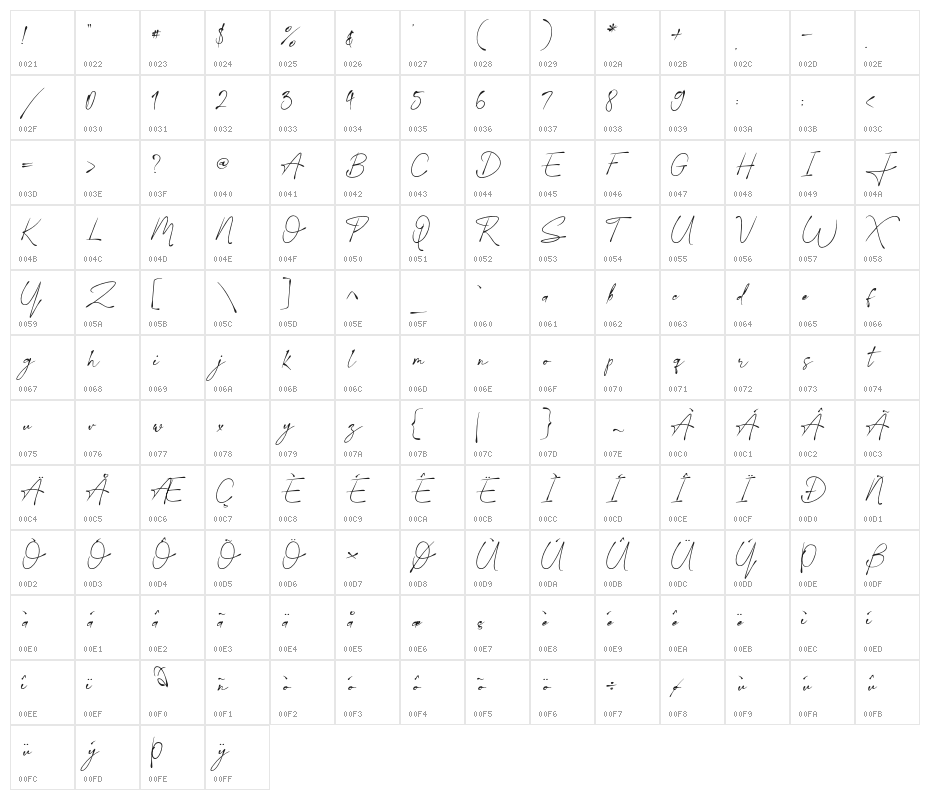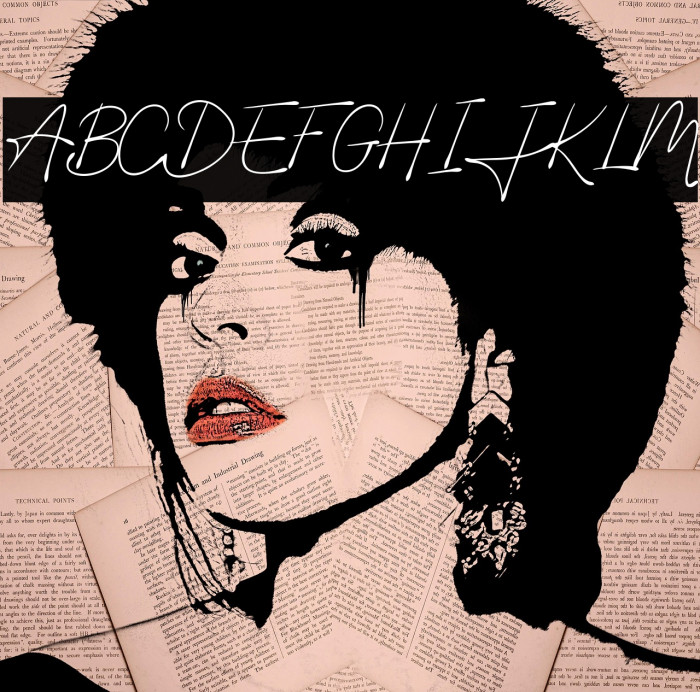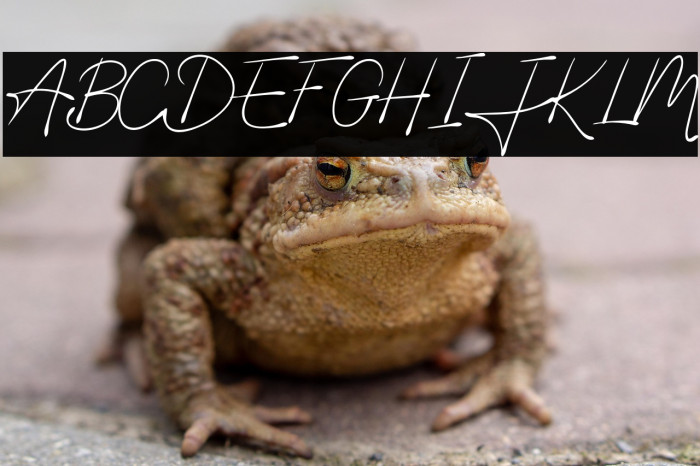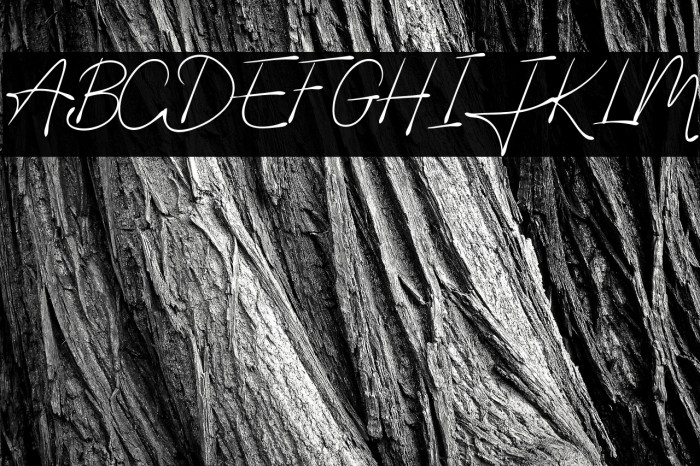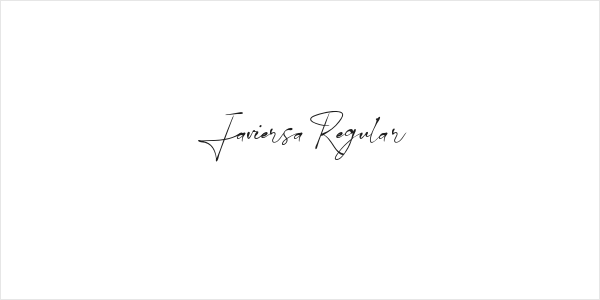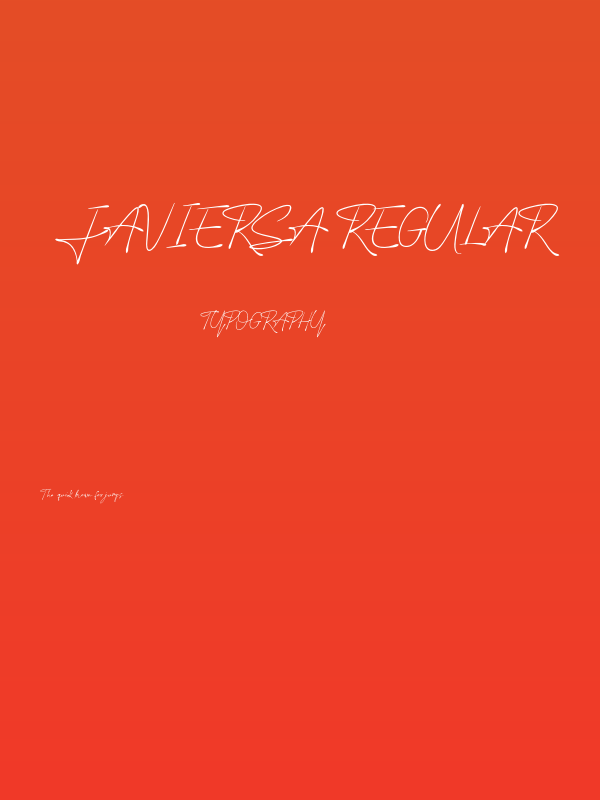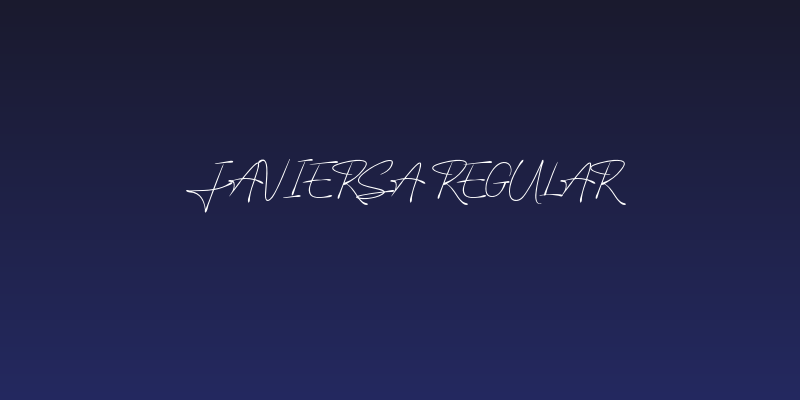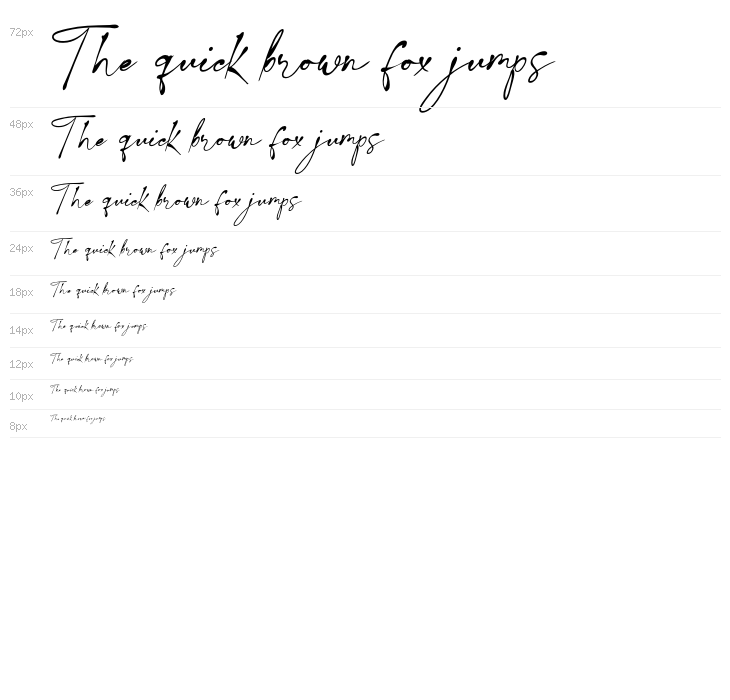
Javiersa Regular Font
Javiersa Regular Description
This font exudes a lively and expressive character, with its fluid and dynamic strokes that mimic the natural flow of handwriting. The uppercase letters are tall and elegant, while the lowercase letters maintain a consistent rhythm, adding to the overall aesthetic appeal. The numerals are distinct and well-balanced, complementing the alphabetic characters. Special characters are thoughtfully designed, maintaining the font's cohesive style. The font's playful yet sophisticated nature makes it versatile for various creative applications.